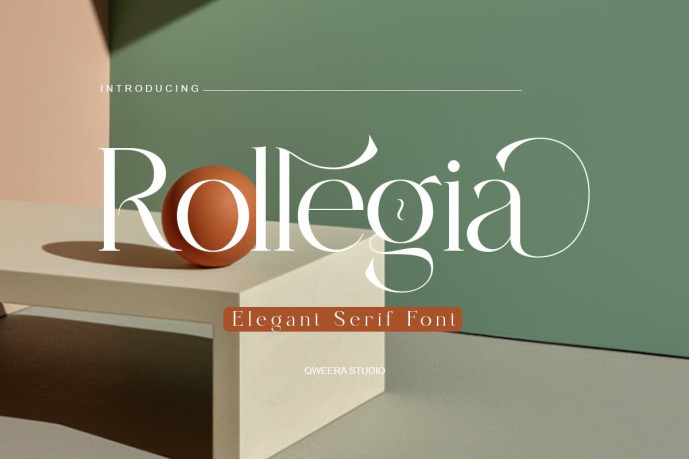
Rollegia – Modern Elegant Serif Font
Designer: Idhham Cholid Rikzano Yahya
Rollegia is an elegant serif font crafted for fashion branding, luxury logos, editorial layouts, premium identity design, and refined visual presentations. With its graceful serif structure, stylish proportions, and sophisticated display character, Rollegia brings a clean, modern, and upscale presence to every creative project.
Its polished letterforms work beautifully for fashion campaigns, boutique logos, residential branding, premium signage, beauty packaging, editorial headlines, social media visuals, and elegant product presentations. Rollegia includes uppercase and lowercase characters, stylish alternates, ligatures, multilingual support, professional kerning, Regular and Italic styles, plus OTF, TTF formats for polished print and digital use.
Bring elegant sophistication and premium serif character into your next branding, editorial, or luxury identity project with Rollegia.
Features
Elegant modern serif style
Complete uppercase and lowercase characters
Stylish alternates and ligatures
Multilingual character support
Professional kerning for polished typography
Regular and Italic font styles
Refined luxury look for fashion, branding, and editorial design